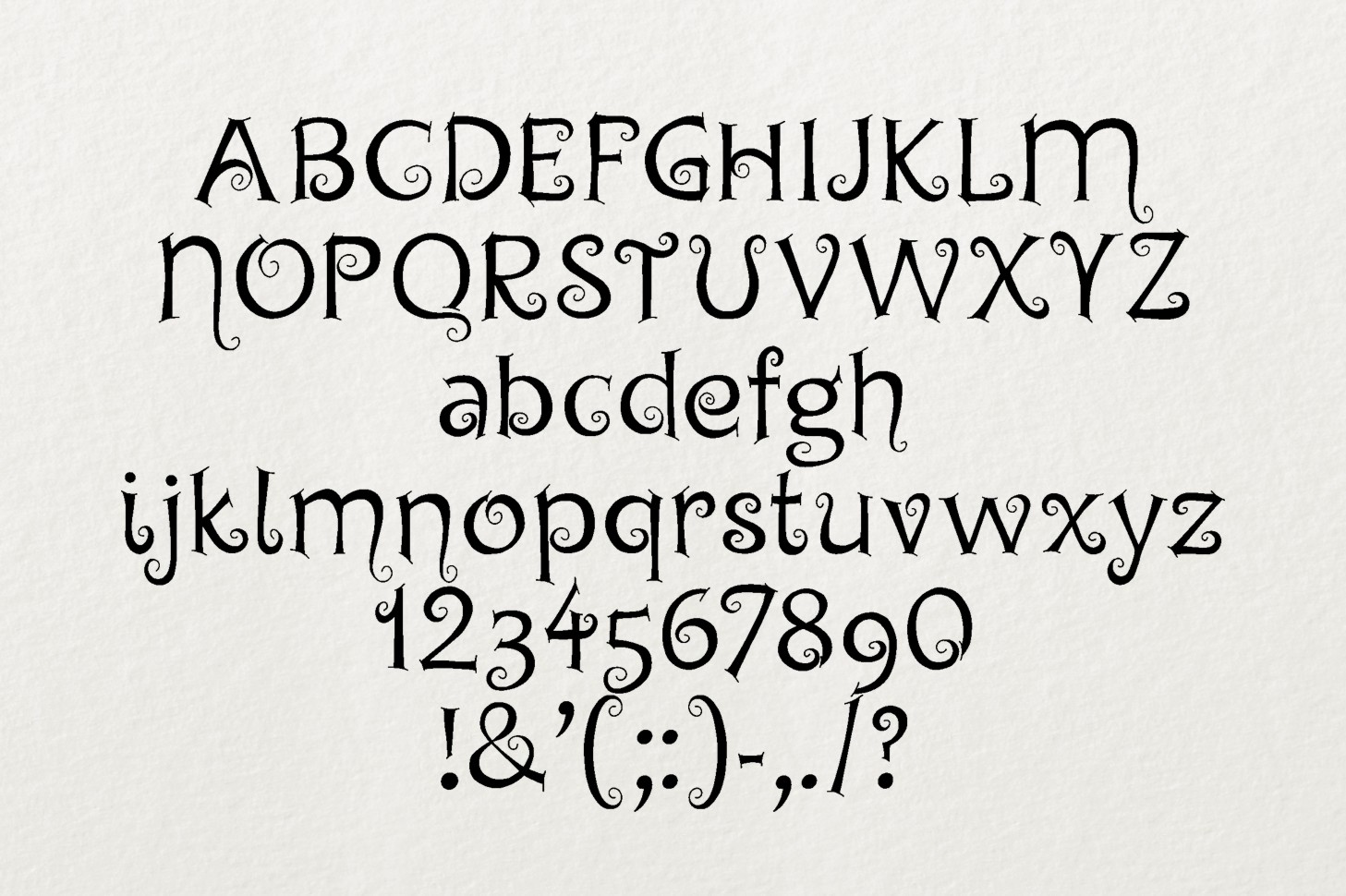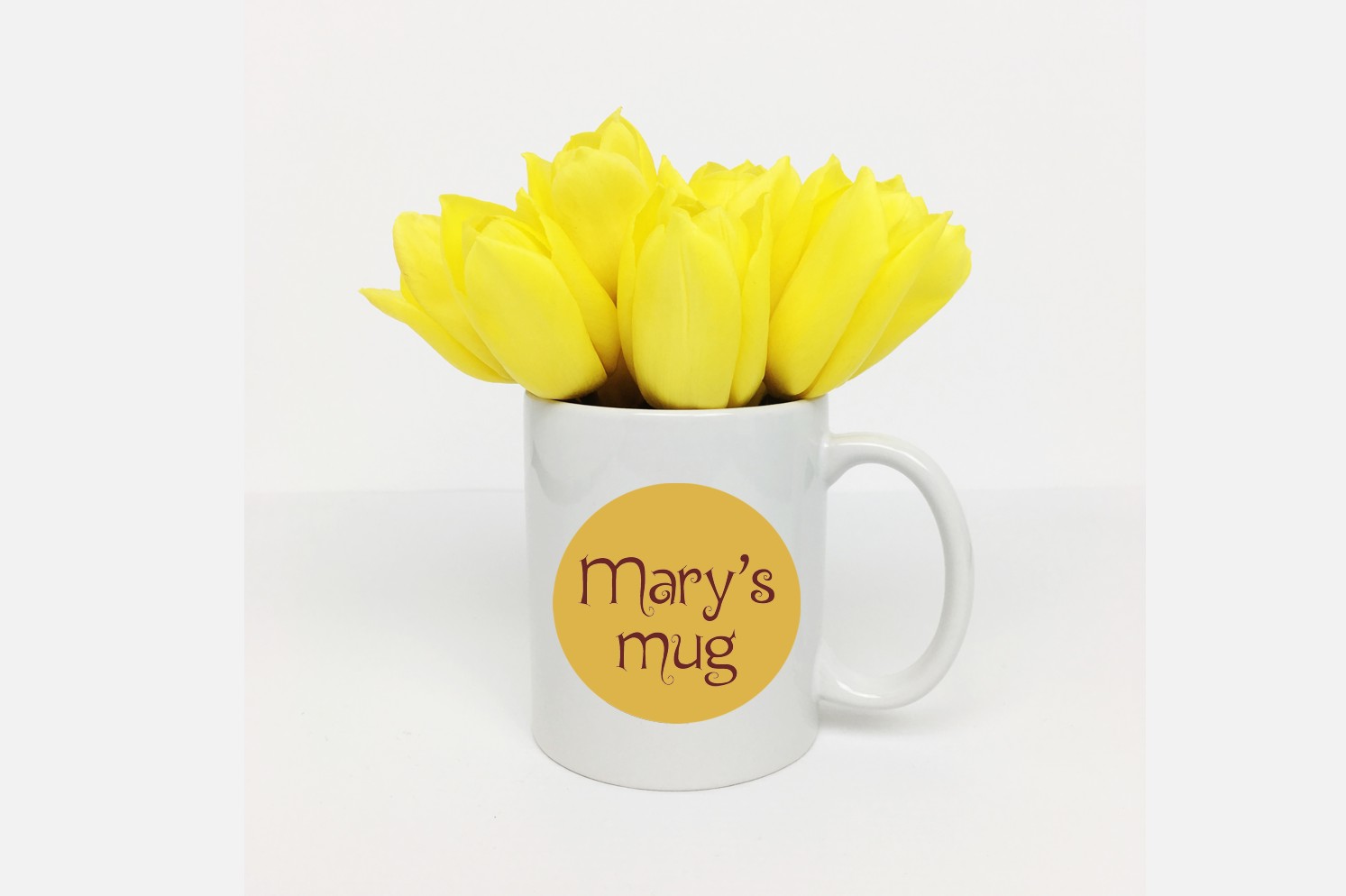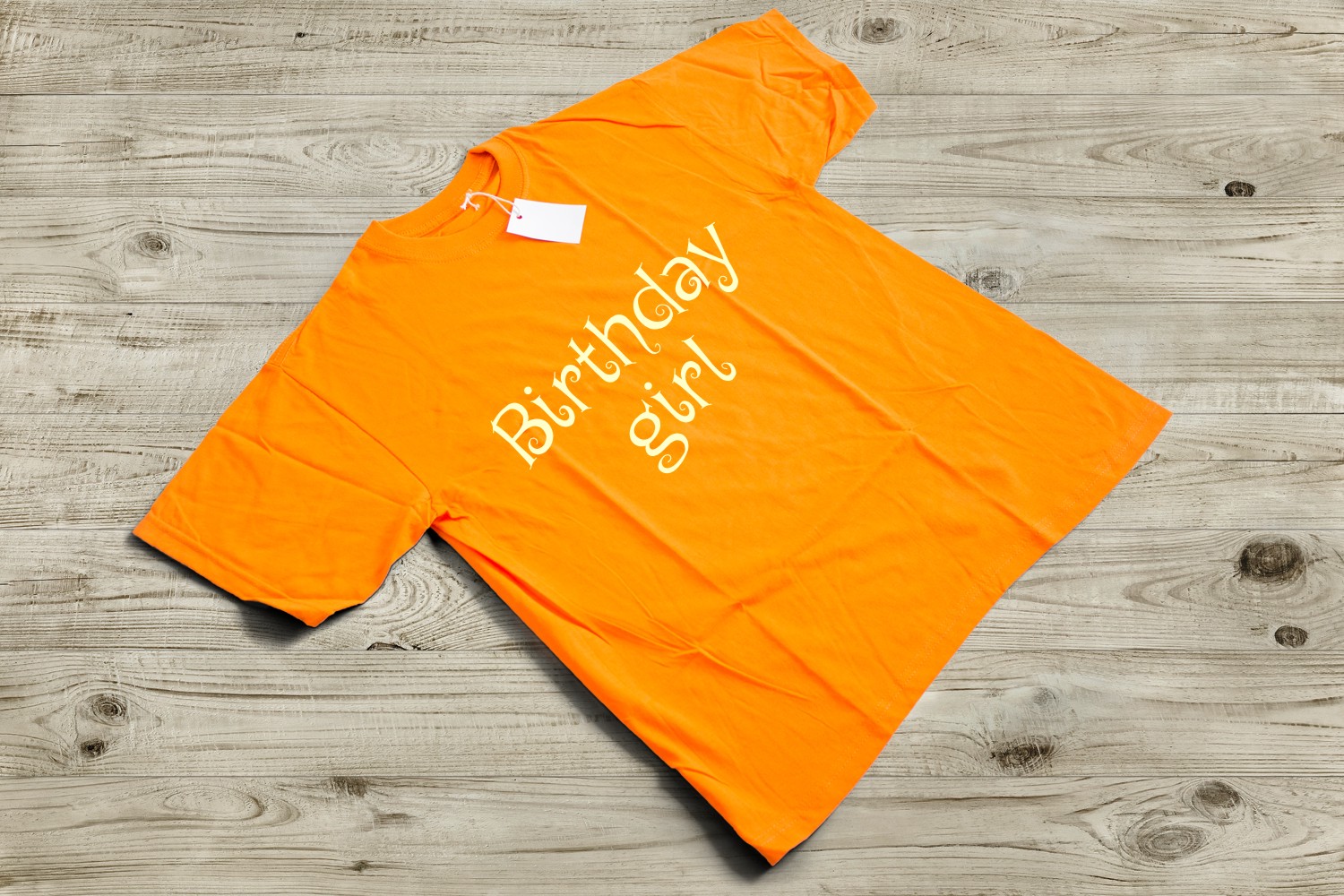
Chyga Font
About Chyga Font
Variable and kind looking, Chyga is a wonderful humanist serif font that can pack a punch to your projects. What makes Chyga unique is the merged curls in combination with classic appeal.
Chyga is a great handwritten option for a variety of designs.